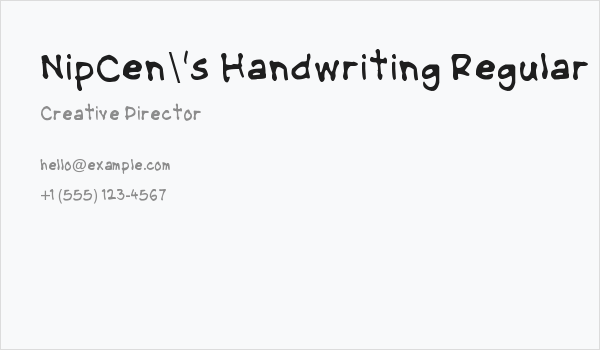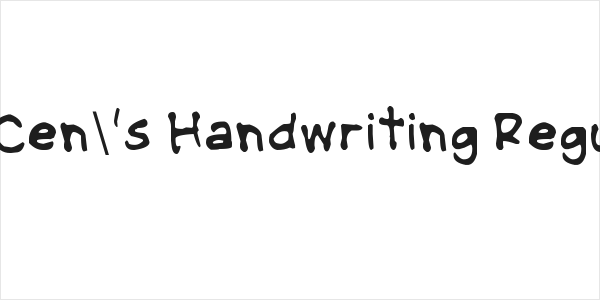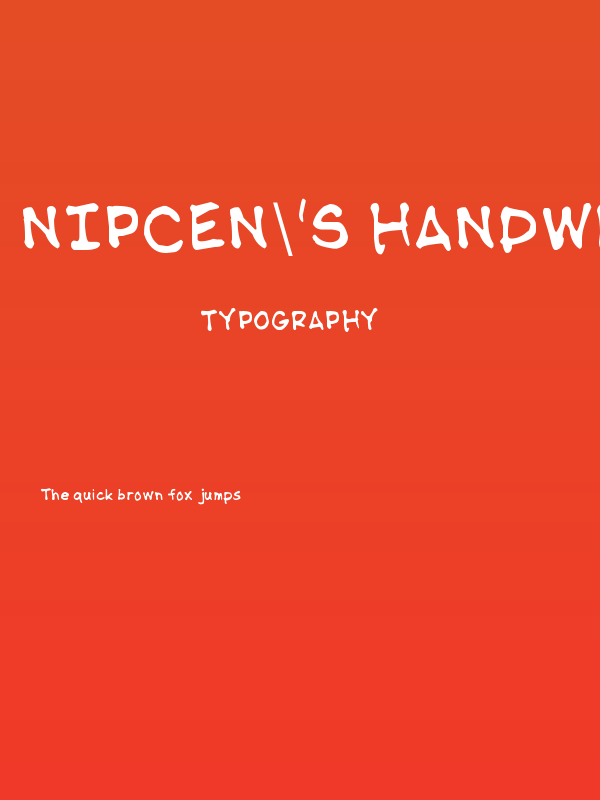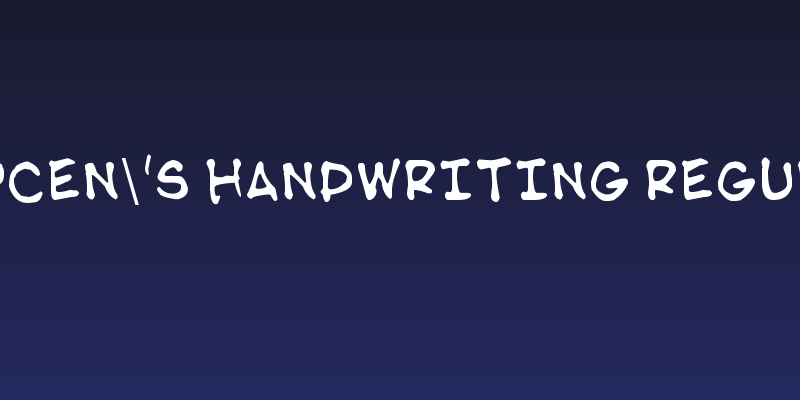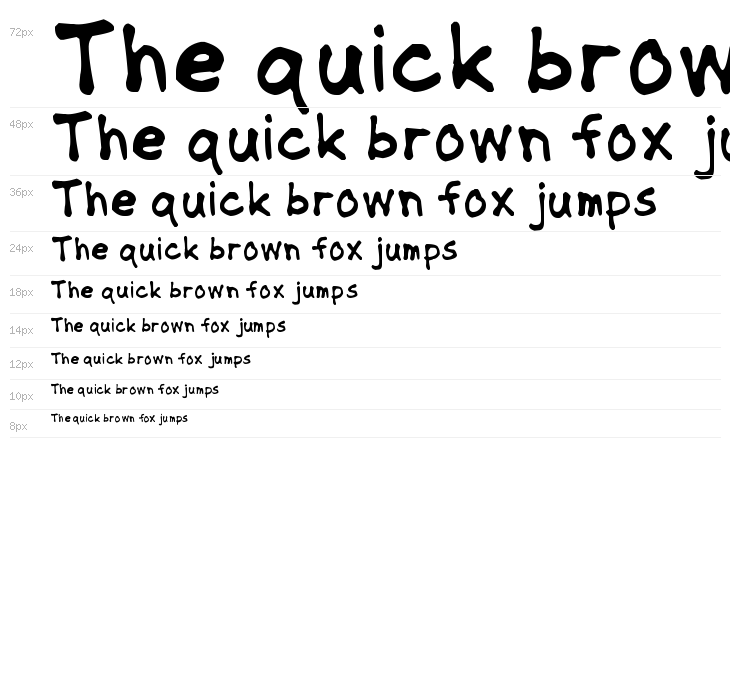
NipCen's Handwriting Regular Font
NipCen's Handwriting Regular Description
This font exudes a playful and casual handwritten style, characterized by its irregular and organic letterforms. The strokes are bold and slightly uneven, giving it a lively and informal appearance. Each character seems to have been drawn with a marker, adding to its personal and approachable feel. The font maintains a consistent weight throughout, with rounded edges that soften its overall look. It is highly legible, making it suitable for both short and medium-length text. The spacing between characters is normal, allowing for easy readability without feeling cramped. This font is ideal for projects that require a touch of personality and warmth, such as children's books, greeting cards, or casual branding.
| Proposed Projects | Ideal for children's books, greeting cards, casual branding, and informal invitations. |